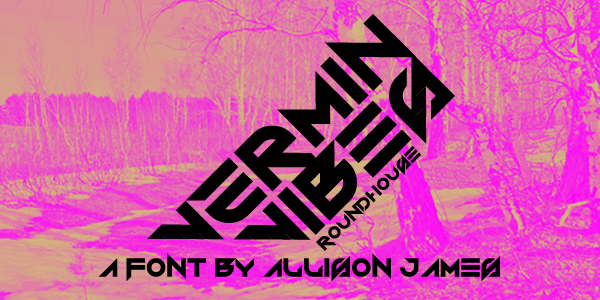
Vermin Vibes Roundhouse
Named for: Another Vermin Vibes variant
Vermin Vibes Roundhouse was made while I still only used FontStruct, meaning the rounded characters were quite difficult to make. That’s why it has so many odd characters.